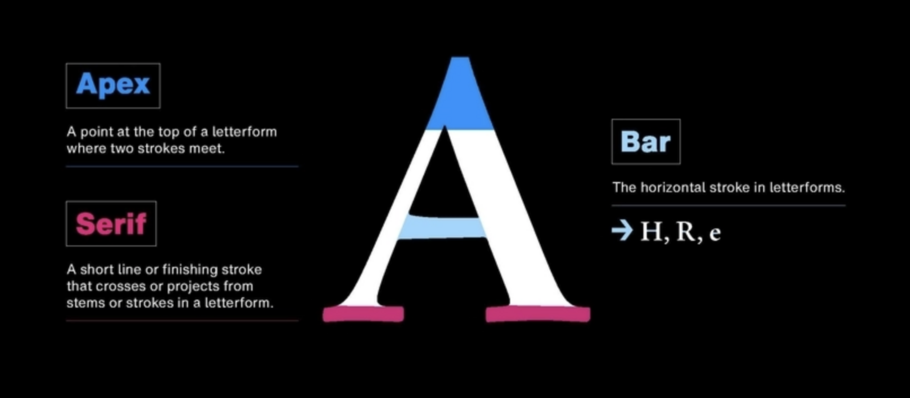
What’s in a letterform? An illustrated guide to type terms.
A letter is more than the sum of its parts, but sometimes it helps to know what those parts are called.
A letter is more than the sum of its parts, but sometimes it helps to know what those parts are called. And it may not surprise you to learn that in a field as meticulous as typography, every little piece of a letter has a name.